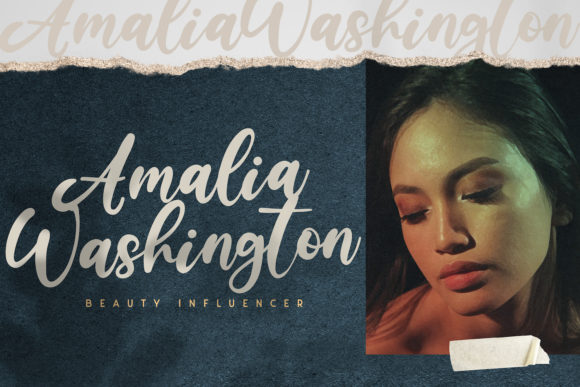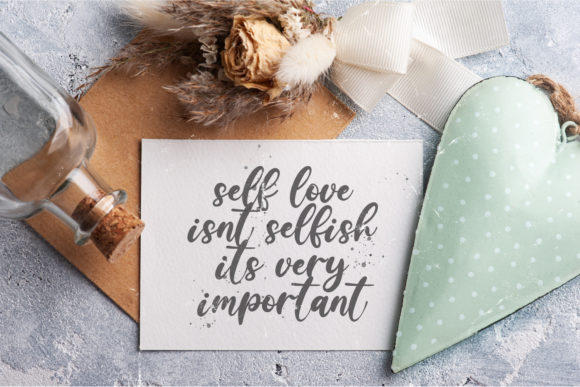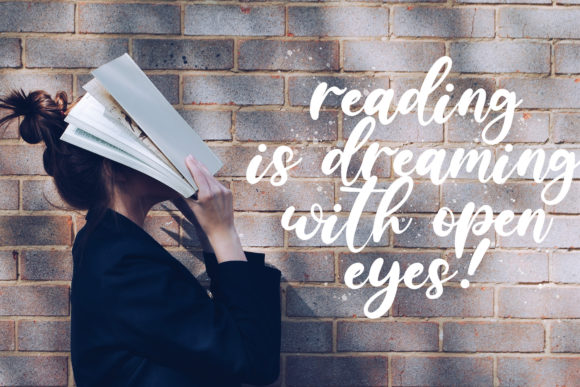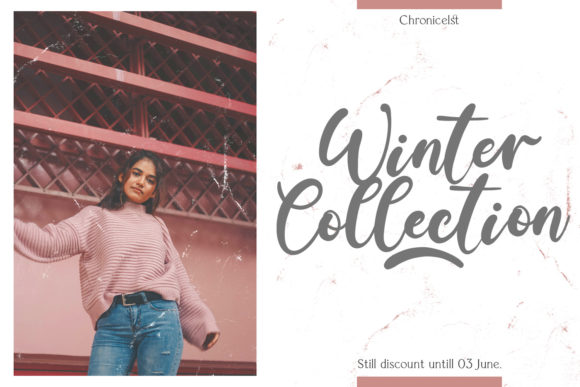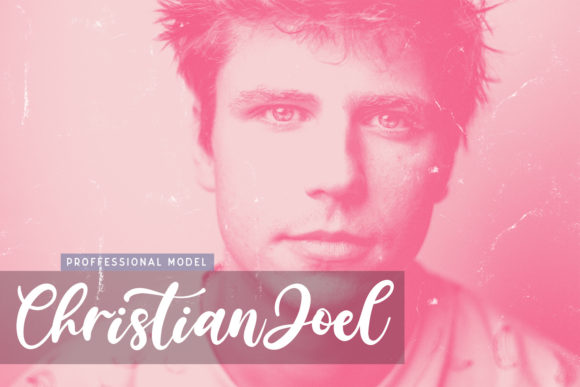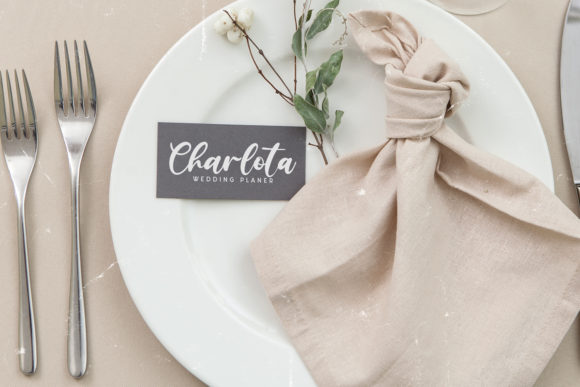
Introduction to Ratih Hyun Font
Ratih Hyun is an exquisite handwritten font, masterfully designed to become a true favorite.
Key Features of Ratih Hyun Font
Why Choose Ratih Hyun Font?
Ratih Hyun Font offers exceptional quality and versatility, making it a valuable addition to your design toolkit. Whether you’re creating for personal projects or commercial use, Ratih Hyun Font delivers professional results.